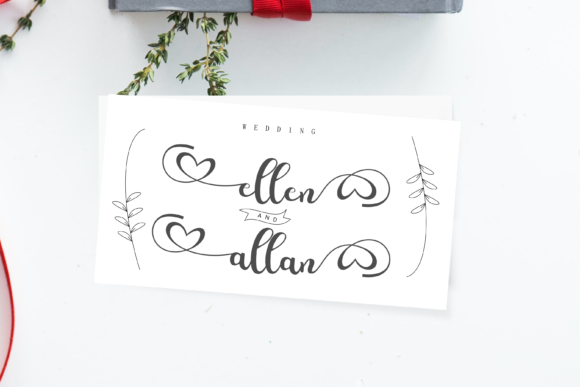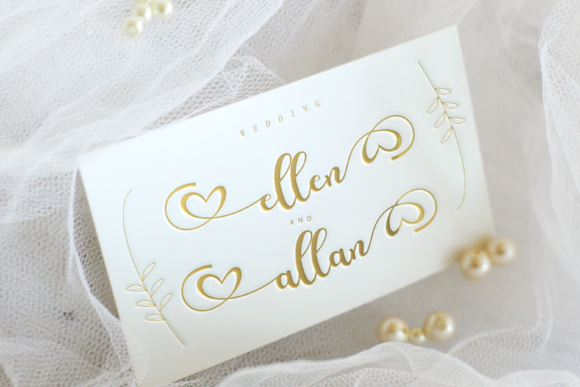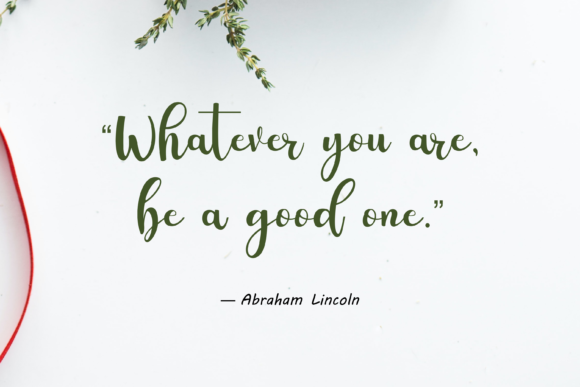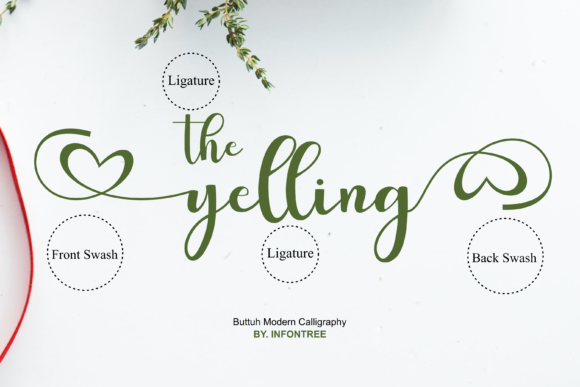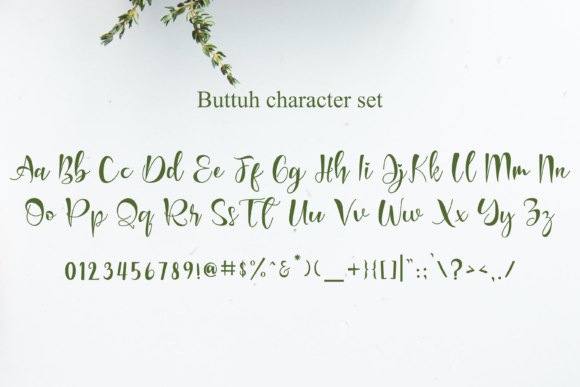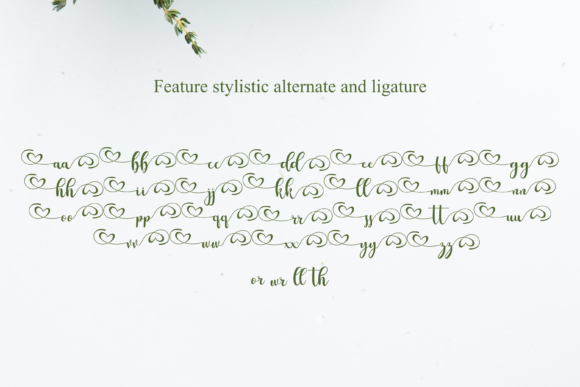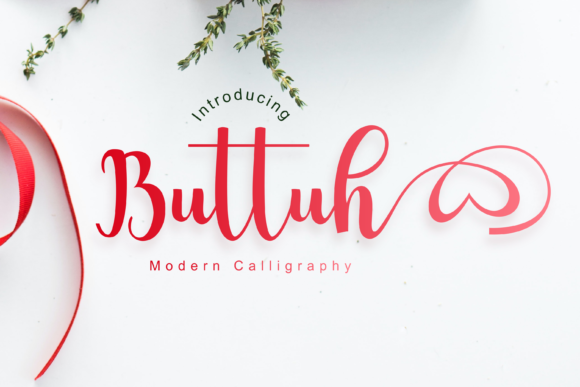
Introducing Buttuh Font: Elevate Your Designs with Elegance and Sophistication
In the world of typography, a font can make or break a design. For designers and crafters seeking to add a touch of elegance and sophistication to their projects, Buttuh Font is an exceptional choice. This delicate, elegant, and flowing handwritten font is designed to captivate audiences with its beautiful and well-balanced characters, making it an ideal match for a wide range of designs.
The Characteristics of Buttuh Font
Buttuh Font boasts a unique set of characteristics that set it apart from other fonts. Its varying baseline, smooth lines, and gorgeous glyphs work in harmony to create a visually stunning effect. The font features stunning alternates, providing designers with the flexibility to experiment with different styles and create one-of-a-kind designs.
One of the standout features of Buttuh Font is its delicate and elegant appearance. The font’s flowing lines and curves create a sense of movement and fluidity, making it perfect for designs that require a touch of sophistication. Whether you’re working on a branding project, a wedding invitation, or a packaging design, Buttuh Font is sure to impress.
Why Choose Buttuh Font?
So, why should designers and crafters choose Buttuh Font for their projects? Here are just a few reasons:
- Elegance and sophistication: Buttuh Font exudes elegance and sophistication, making it perfect for designs that require a high-end feel.
- Versatility: The font’s well-balanced characters and varying baseline make it suitable for a wide range of designs, from formal to informal.
- Flexibility: With stunning alternates and gorgeous glyphs, Buttuh Font offers designers the flexibility to experiment with different styles and create unique designs.
- Easy to read: Despite its elegant appearance, Buttuh Font is easy to read, making it perfect for body text and headlines.
Design Applications for Buttuh Font
Buttuh Font is a versatile font that can be used in a variety of design applications. Here are a few ideas to get you started:
- Branding and logos: Use Buttuh Font to create a sophisticated and elegant brand identity.
- Wedding invitations and stationery: Add a touch of romance and elegance to your wedding invitations and stationery with Buttuh Font.
- Packaging design: Use Buttuh Font to create eye-catching packaging designs that stand out on store shelves.
- Signage and displays: Buttuh Font is perfect for signage and displays that require a touch of elegance and sophistication.
Tips for Using Buttuh Font
To get the most out of Buttuh Font, here are a few tips to keep in mind:
- Pair with contrasting fonts: Pair Buttuh Font with contrasting fonts to create visual interest and add depth to your designs.
- Experiment with alternates: Take advantage of Buttuh Font’s stunning alternates to create unique and eye-catching designs.
- Use for headlines and body text: Buttuh Font is suitable for both headlines and body text, making it a versatile choice for a wide range of designs.
In conclusion, Buttuh Font is an exceptional choice for designers and crafters seeking to add a touch of elegance and sophistication to their projects. With its delicate and flowing appearance, well-balanced characters, and stunning alternates, Buttuh Font is sure to impress. Whether you’re working on a branding project, a wedding invitation, or a packaging design, Buttuh Font is a versatile and elegant choice that’s sure to elevate your designs to the next level.